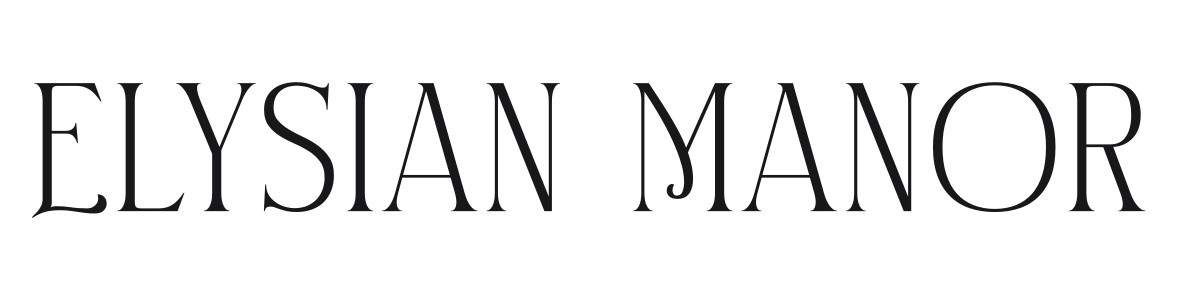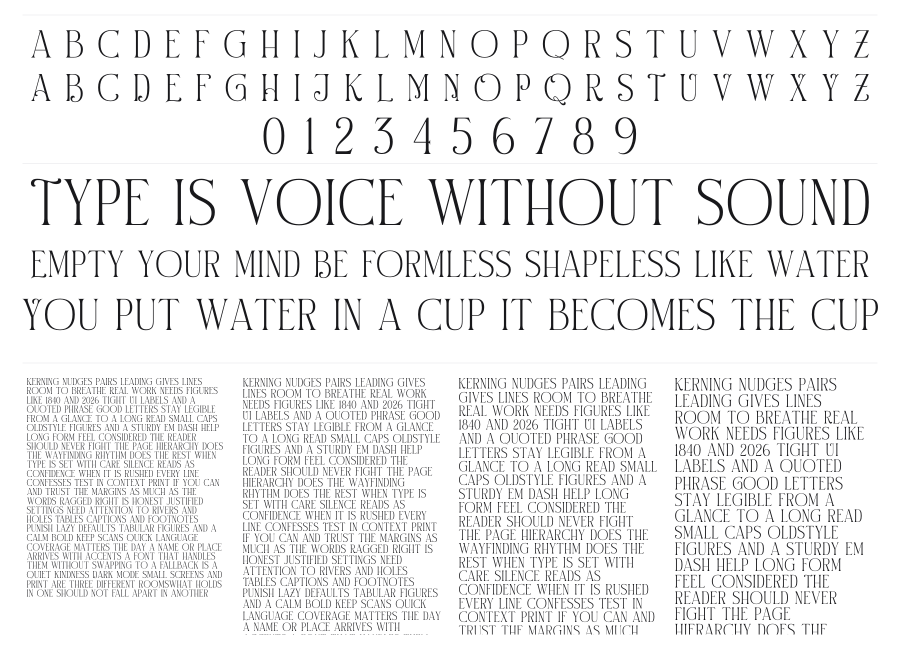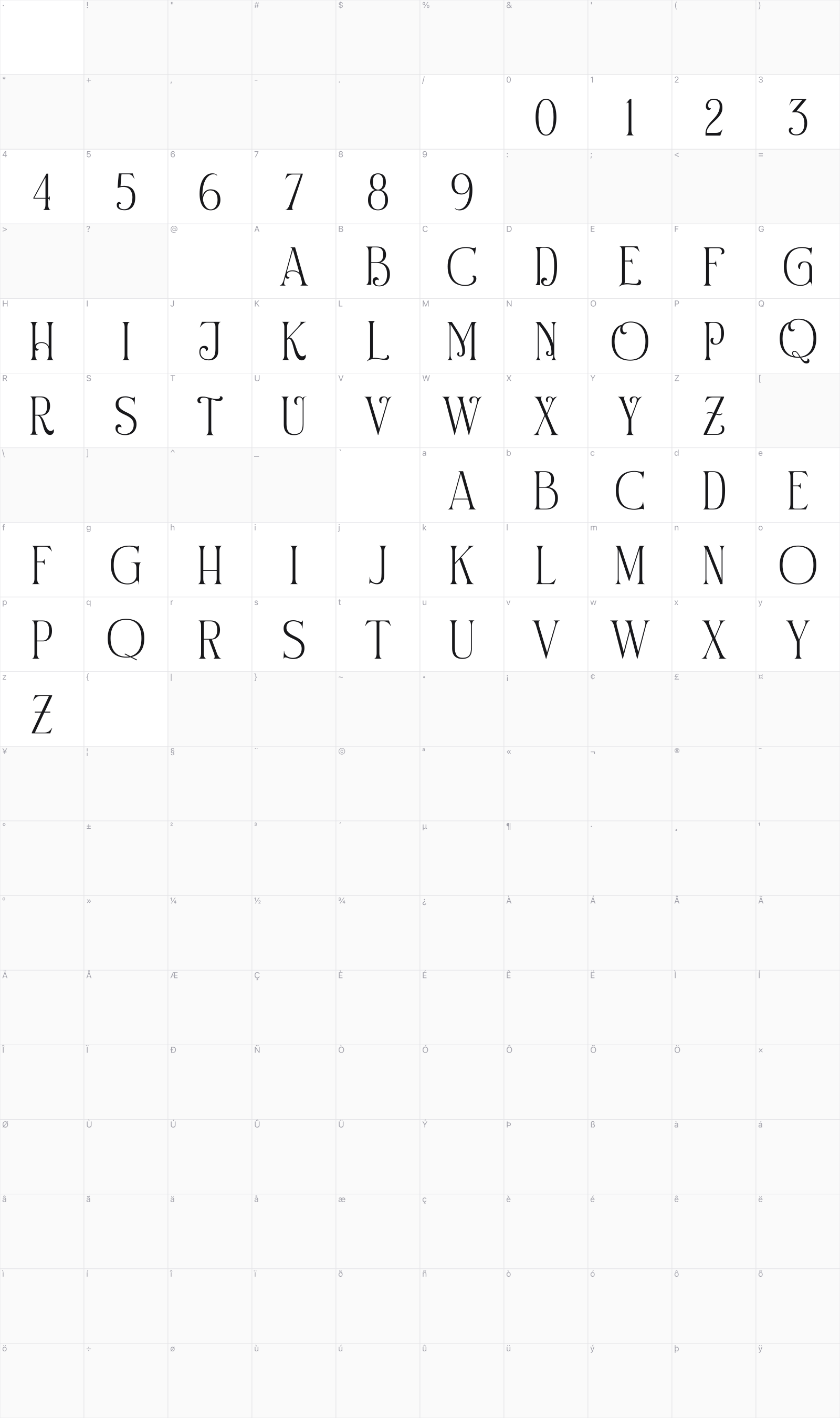
Elysian Manor
Elysian Manor is a high-contrast modern serif rooted in the Didone tradition, with extreme stroke contrast between whisper-thin hairlines and strong vertical stems. The tall proportions and refined detailing give it a fashion-editorial quality that suits luxury branding, editorial headlines, and hospitality identities. It carries the kind of weight that reads as expensive without trying.